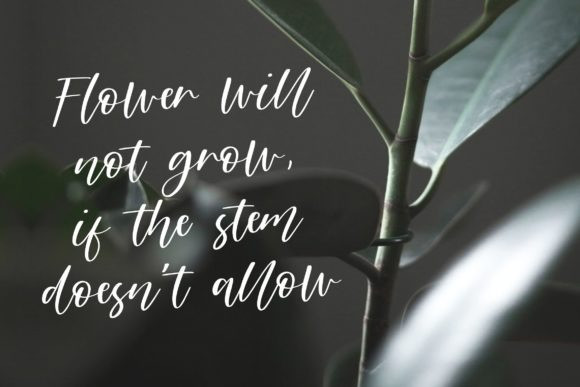
Lestya Script Font
Lestya Script Font by Handles Creative 20,642 downloads
Lestya Script Font
Lestya is a magical script font carefully created with a touch of elegance. Whether you’re looking for fonts for social media or calligraphy scripts for DIY projects, this font will turn any creative idea into a true piece of art!